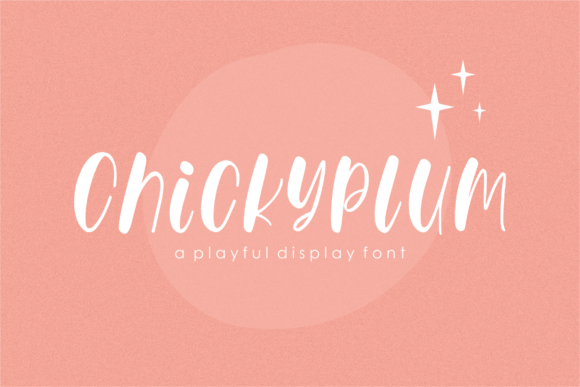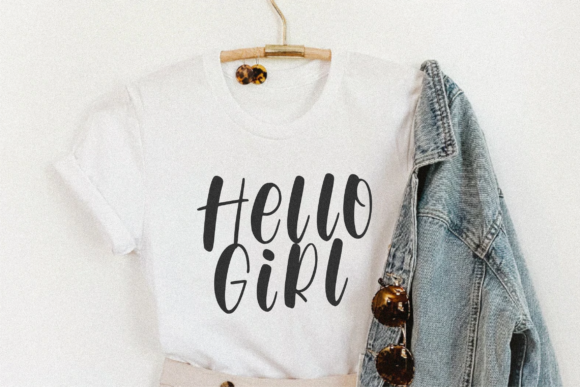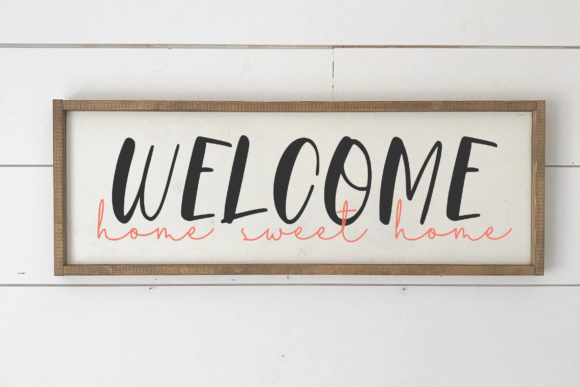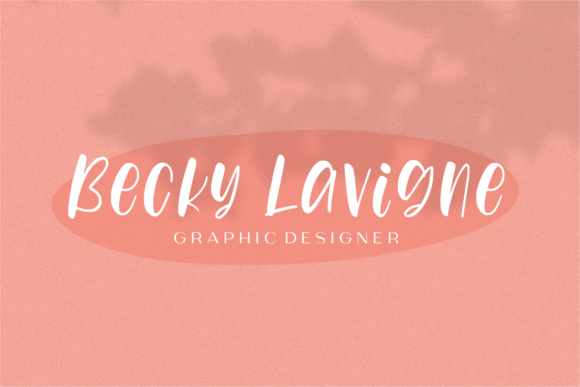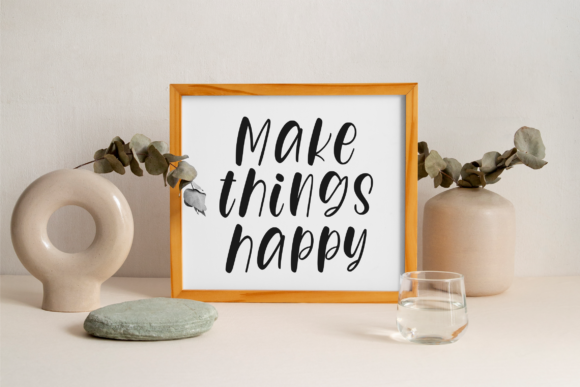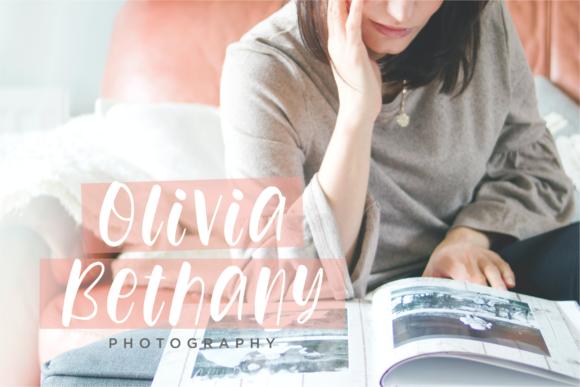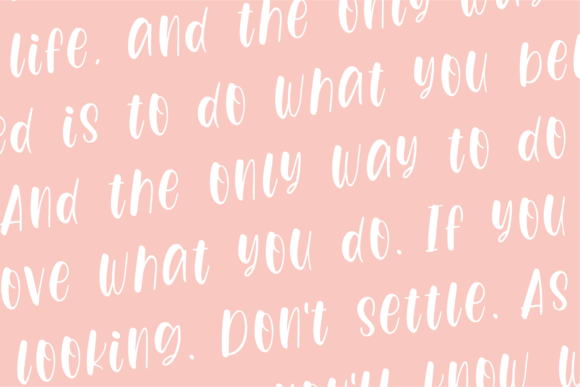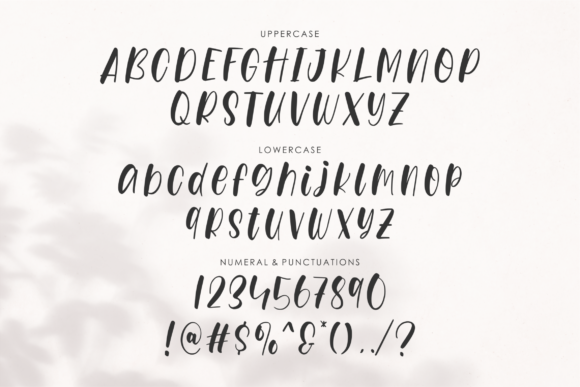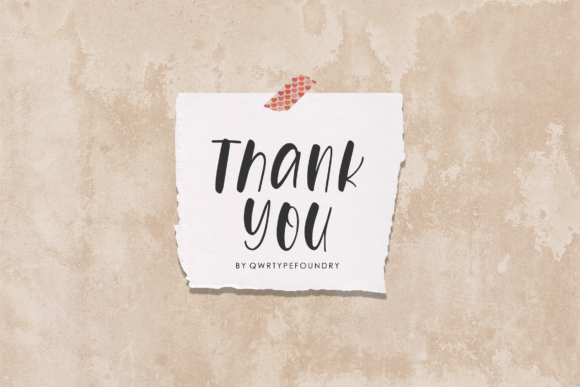
Chickyplum Font
About Chickyplum Font
Chickyplum, a superb handwritten font, is poised to elevate your work with its elegant and curvy lines, ensuring your projects stand out with a touch of excellence. Tailored for versatility, this font is an ideal choice for a wide array of applications, including product packaging, branding projects, magazine covers, social media, weddings, or any instance where expressive text is set against various backgrounds.
The distinctive allure of Chickyplum lies in its handwritten aesthetic, a blend of elegance and fluidity that imparts a personal and authentic touch to your designs. The graceful curves and flowing lines of each character contribute to a visually captivating and harmonious composition, making Chickyplum a standout choice for those seeking a balance of sophistication and individuality.
In product packaging, Chickyplum introduces a sense of uniqueness and charm, enhancing the overall visual appeal of your products. Its handwritten style adds a warm and inviting character to your brand, making it memorable and appealing to consumers.
For branding projects, Chickyplum becomes a powerful tool, creating a distinctive look that is both stylish and approachable. Its versatility ensures seamless adaptation to different design elements, providing cohesiveness and visual impact to your brand identity.
Magazine covers benefit from Chickyplum’s standout quality, whether employed for headlines, subheadings, or any text requiring a captivating and stylish touch. The handwritten charm adds an extra layer of personality to the publication, making it engaging and eye-catching.
Social media posts come alive with Chickyplum, as it injects flair and individuality into your messages. Whether you’re sharing quotes, promotions, or creative content, this font enhances the visual impact, making your posts stand out in the crowded digital space.
For weddings, Chickyplum imparts a romantic and personal feel to invitations, place cards, and other stationery. Its elegant handwritten style creates an intimate and memorable atmosphere for the celebration.
Chickyplum is more than just a font; it’s a design companion that transforms your ideas into visually stunning and expressive works of art. Let the superb elegance of Chickyplum be the key to making your projects truly exceptional.